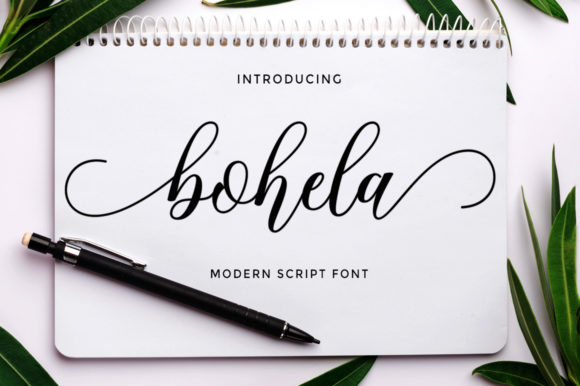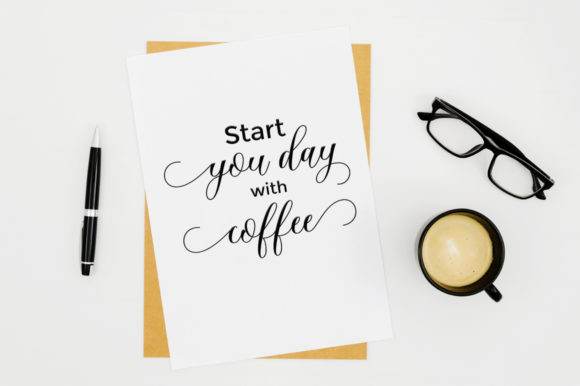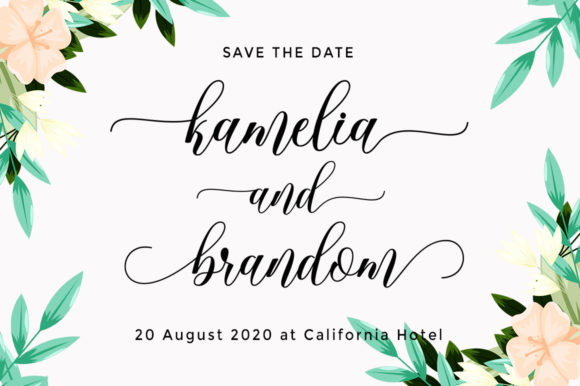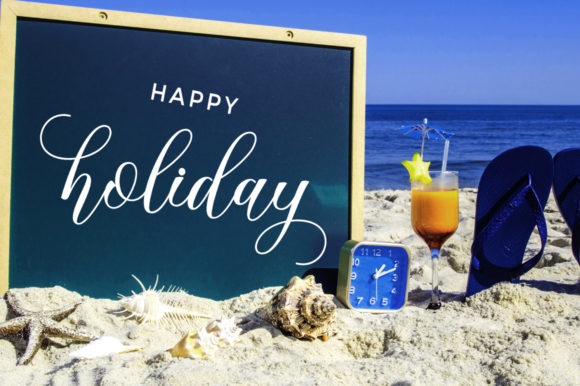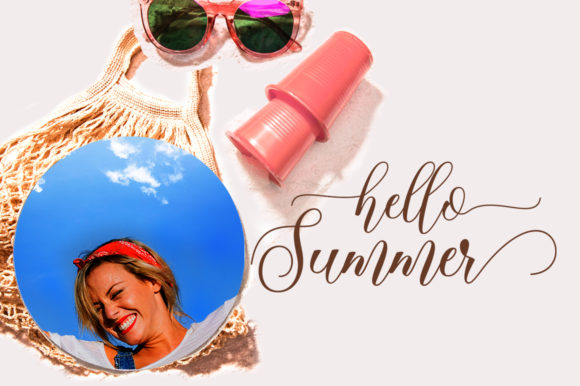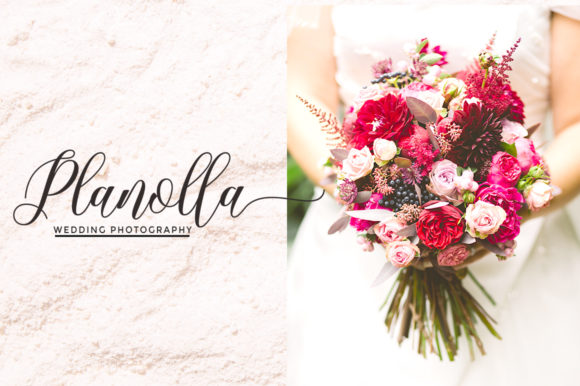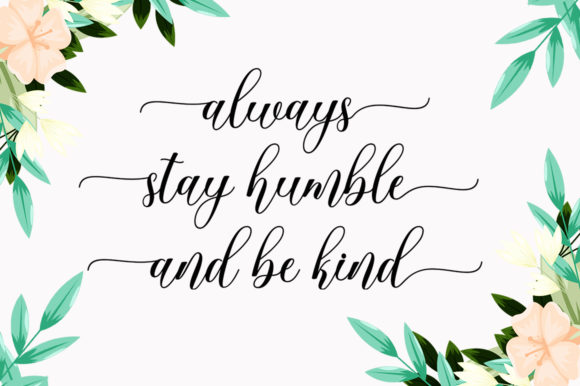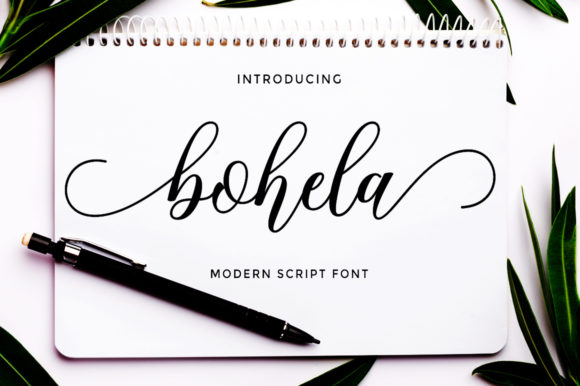
HomeScript FontsBohela Font Script Fonts Bohela Font FacebookXPinterestWhatsApp Bohela Font Poster 2 Bohela Font Poster 3 Bohela Font Poster 4 Bohela Font Poster 5 Bohela Font Poster 6 Bohela Font Poster 7 Bohela Font Poster 8 About Bohela Font Bohela is a playful and cute script with a strong feel. Get inspired by its unique charm! DOWNLOAD ON CREATIVE FABRICAThis font is sold and delivered by Creative Fabrica. Font Canyon may earn a commission if you buy through this link. People also explored Adela Font Magic Moons Font Arlian Font Sweet Home Font Keyla Font The Last Day Font Hyacinth Font Beddar Cheddar Font Begihan Script Font 314 0 TagsBohela Font Previous articleGhivton FontNext articleAvagan Font LEAVE A REPLY Cancel reply Comment: Please enter your comment! Name:* Please enter your name here Email:* You have entered an incorrect email address! Please enter your email address here Website: Save my name, email, and website in this browser for the next time I comment. Personal Use Free Delions Personal Use Free Read more about this font Ciggs Personal Use Free Read more about this font Written by Hand Personal Use Free Read more about this font Glosery Personal Use Free Read more about this font BLOG Top 7 Google Fonts Alternatives for Faster and Privacy-Friendly Web Design (2025) Top 7 Google Fonts Alternatives for Faster and Privacy-Friendly Web Design (2025) When it comes to web typography, Google Fonts has long been the go-to... Free Fonts Risk: Why Free Fonts Can Be Dangerous for Designers Fonts That Capture the Spirit of New York City Best Fonts for YouTube Videos: Make Your Thumbnails Stand Out